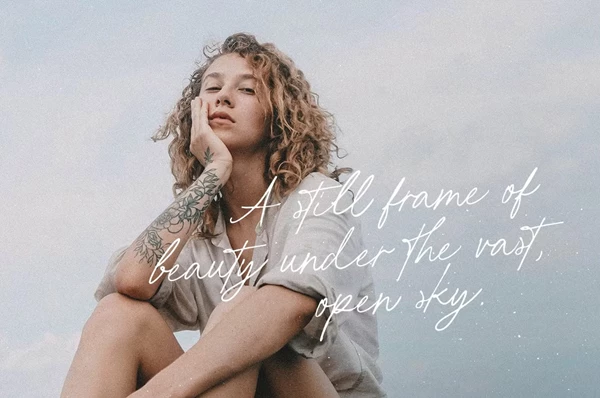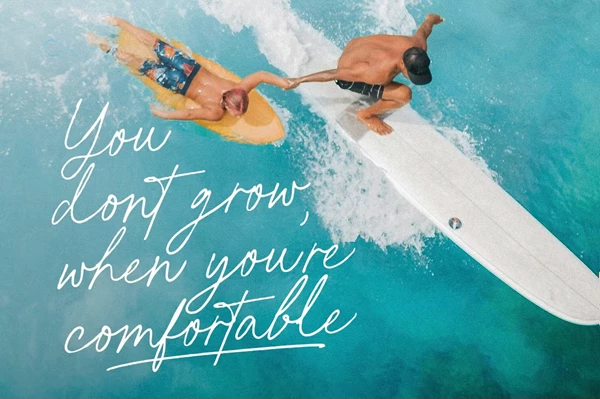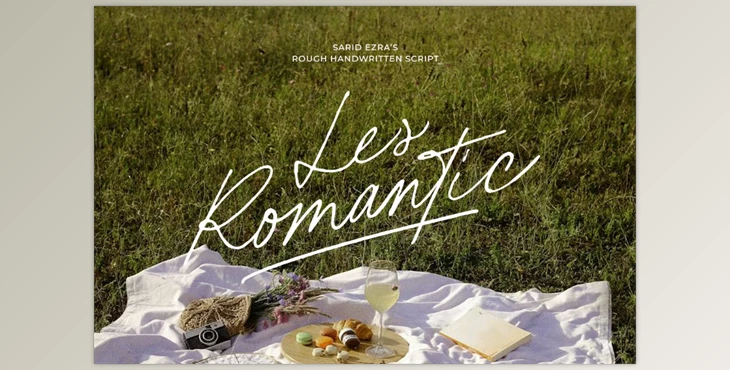
Les Romantic - Rough Handwritten Font:
Les Romantic brims with beauty as it imitates types of calligraphy and authentic cursive hand writing with strokes that are untidy and appealing at the same time characterized by a flowing ligature feature that allows for an effortless link among letters thereby making any design look more organic.
Because of rampant versatility, it can be used for labels, logo designing, handwritten quotes, and even wedding invitations. Les Romantic's easy to use underline feature and ability to support multilingual characters make it perfect for all personalized projects needing an elegant flourish.
Some great features of Les Romantic - Rough Handwritten Font:
- Realistic, rough script style emulates handwriting.
- Seamless ligature allows for smoother, flowing text.
- Make ranch style underline by typing _1, _2, and _3.
- It can be used versatilely, like labels, quotes, logos, invitations, etc.
- Supports many languages for projects to reach broader audiences.
"Les Romantic - Rough Handwritten Font" Samples: